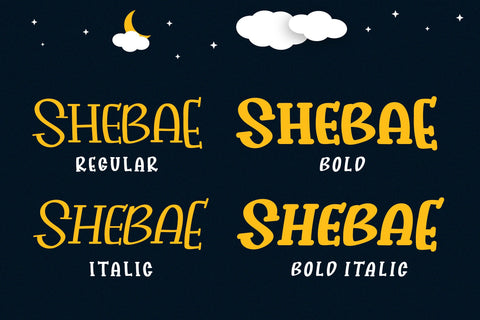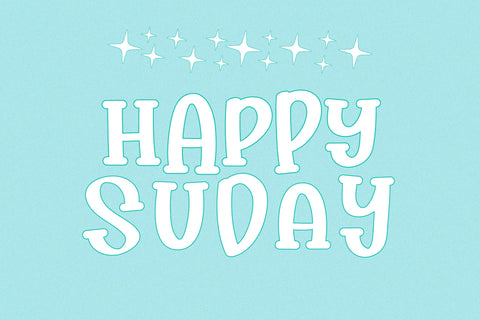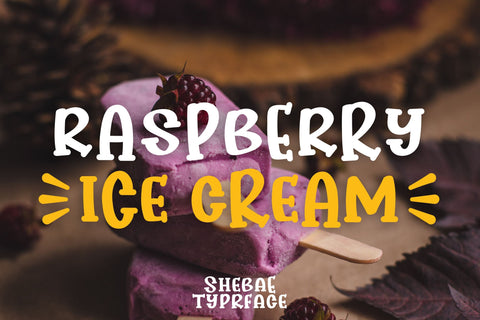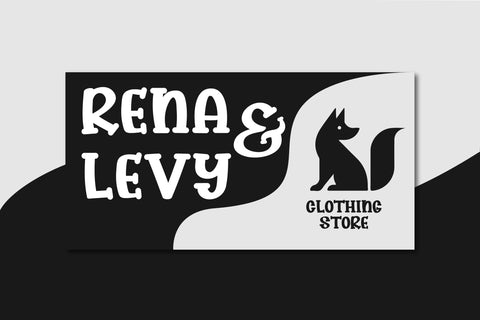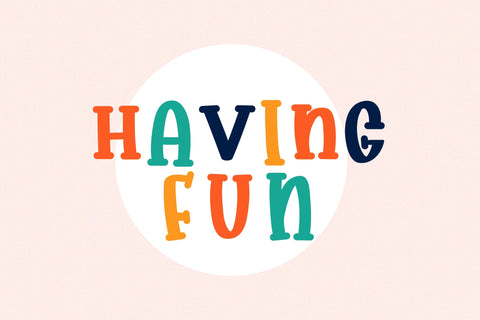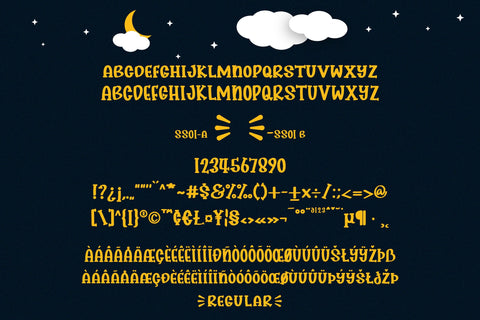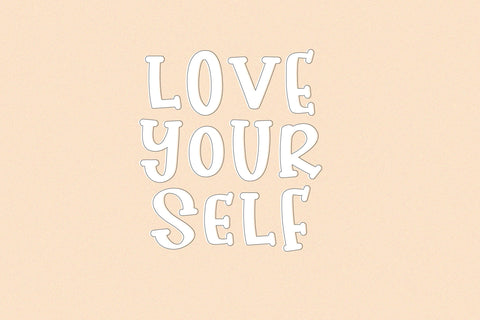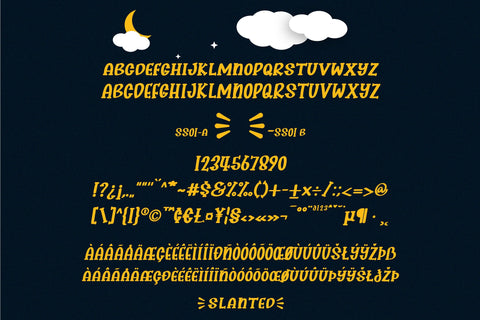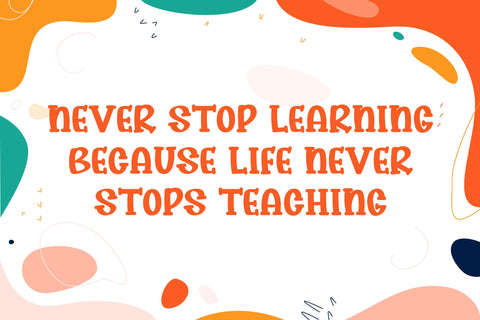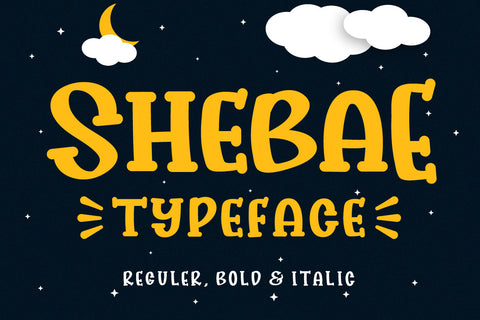
Shebae A Charming & Quirky Serif Font
Shebae is a fun, charming and quirky serif font. It can easily be matched to any design project, so add it to your creative ideas and notice how it makes them stand out!
– Uppercase, Lowercase, Numerals & Punctuations
– Multilingual support